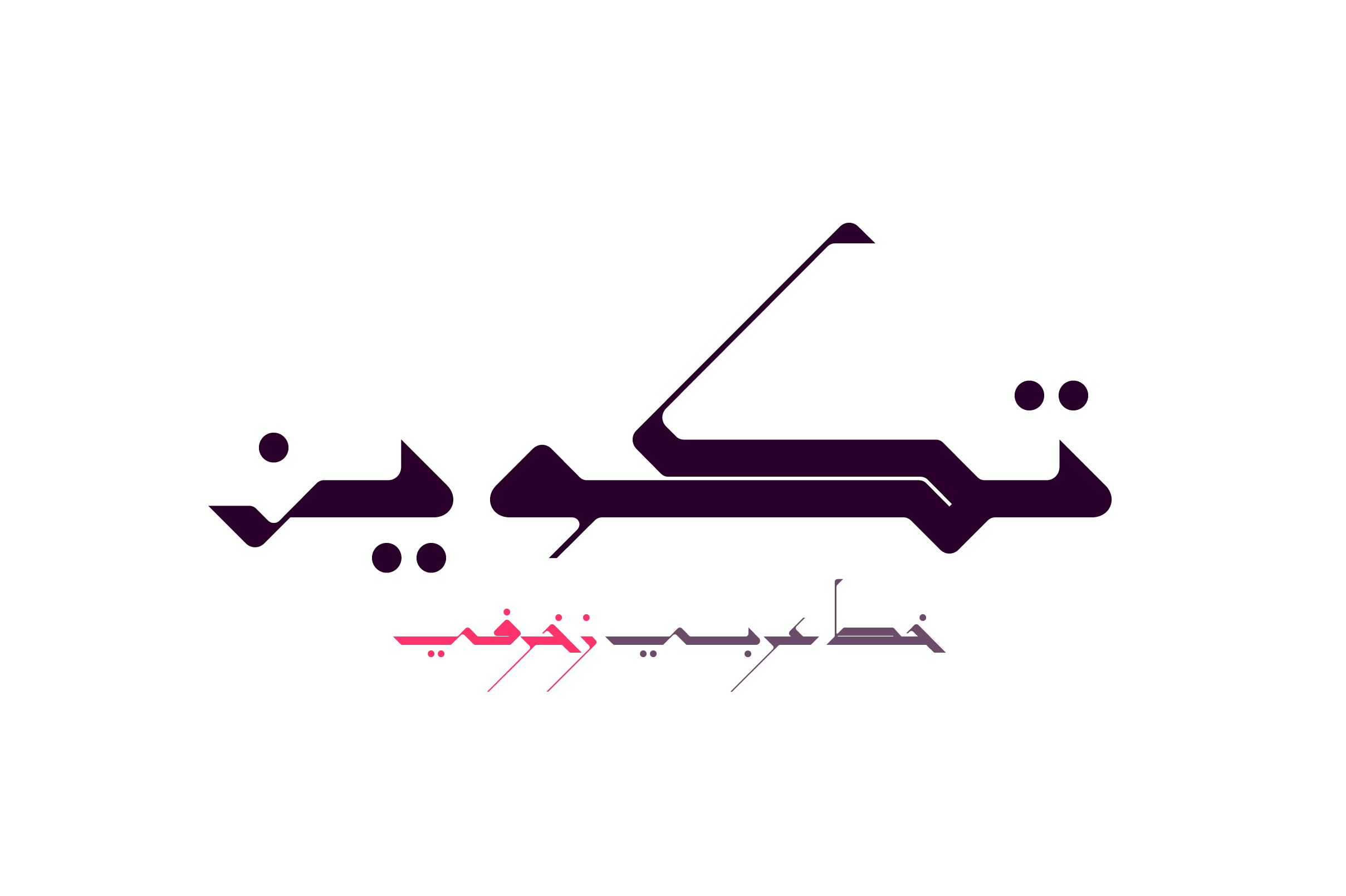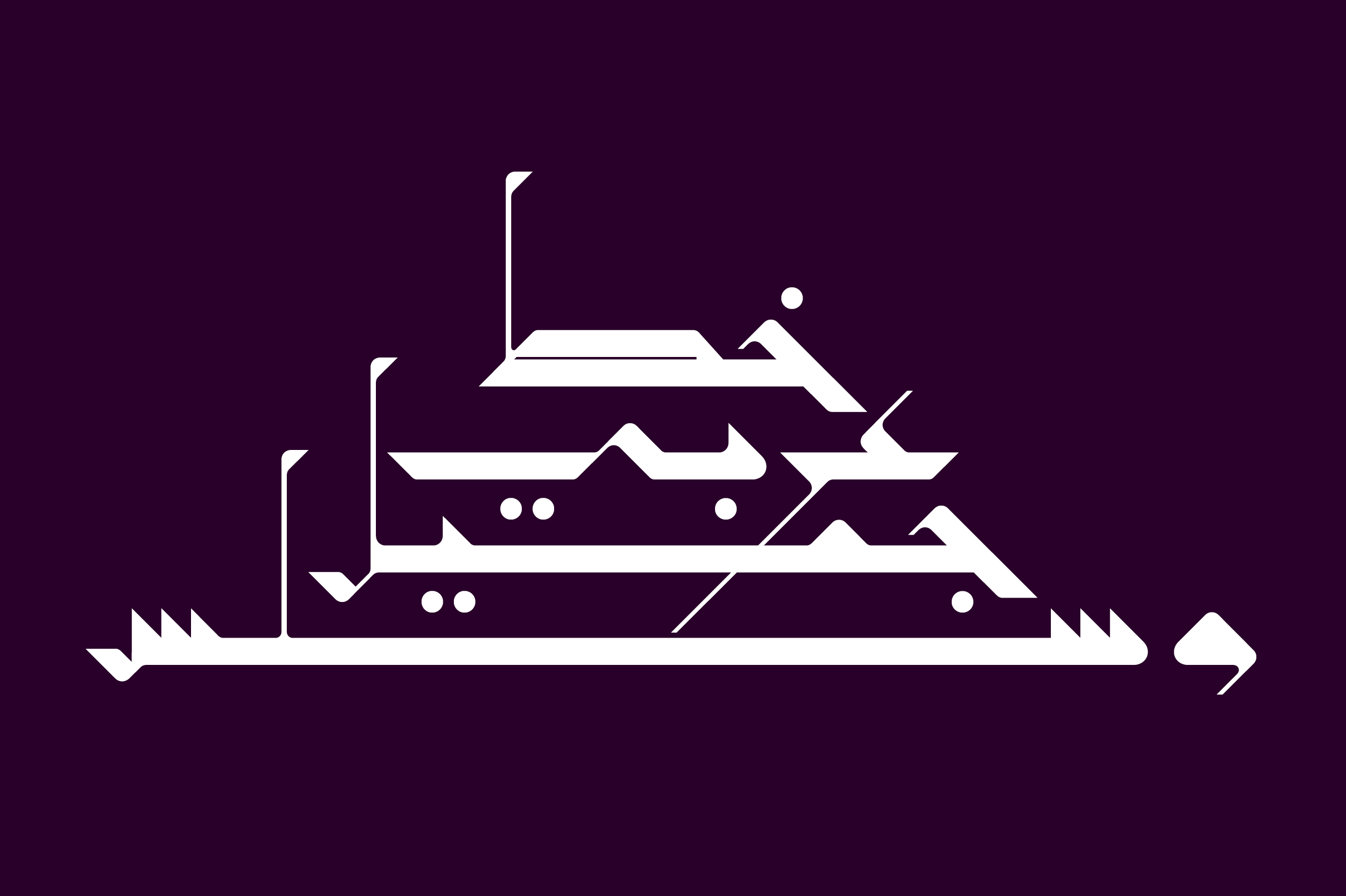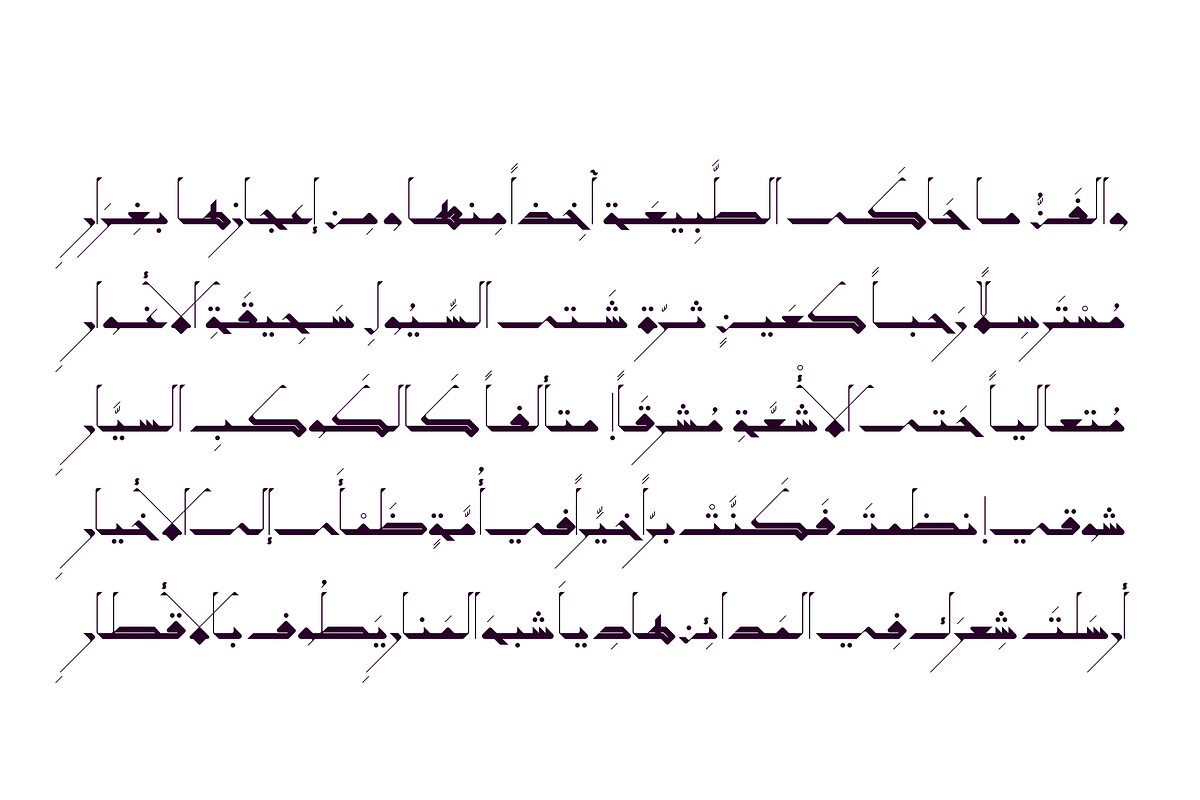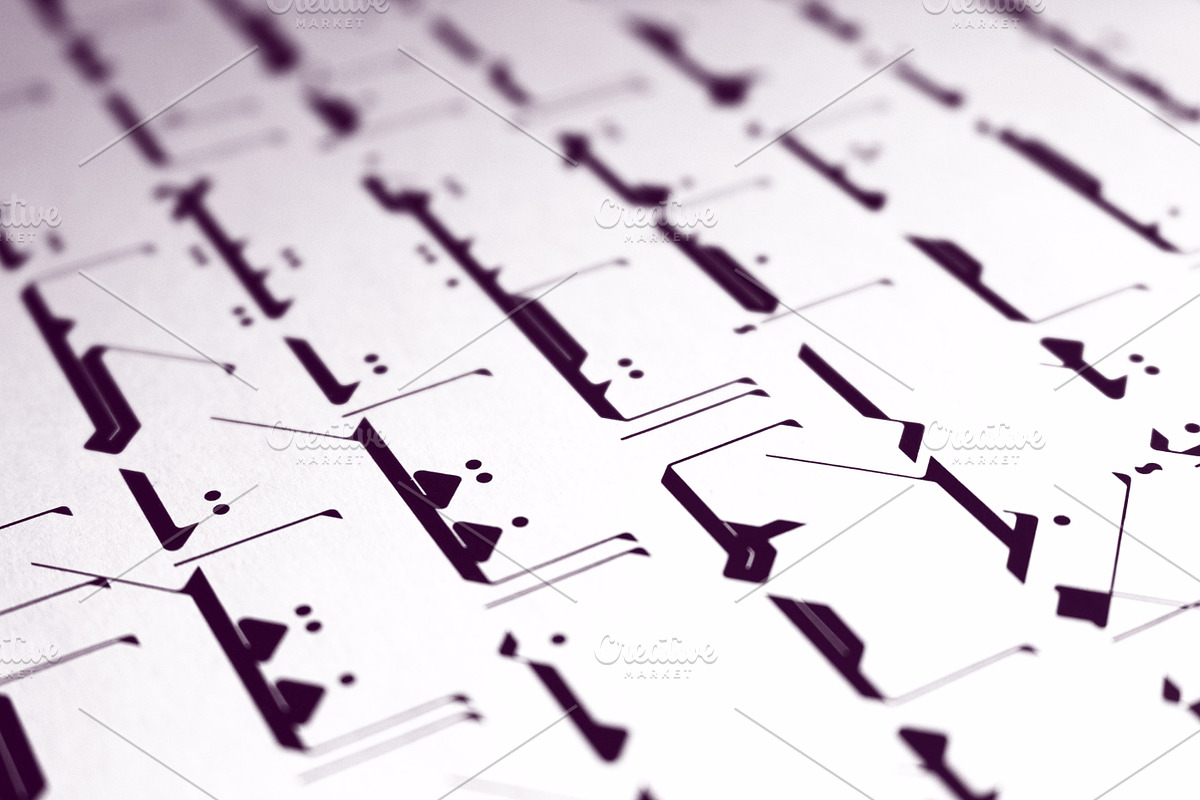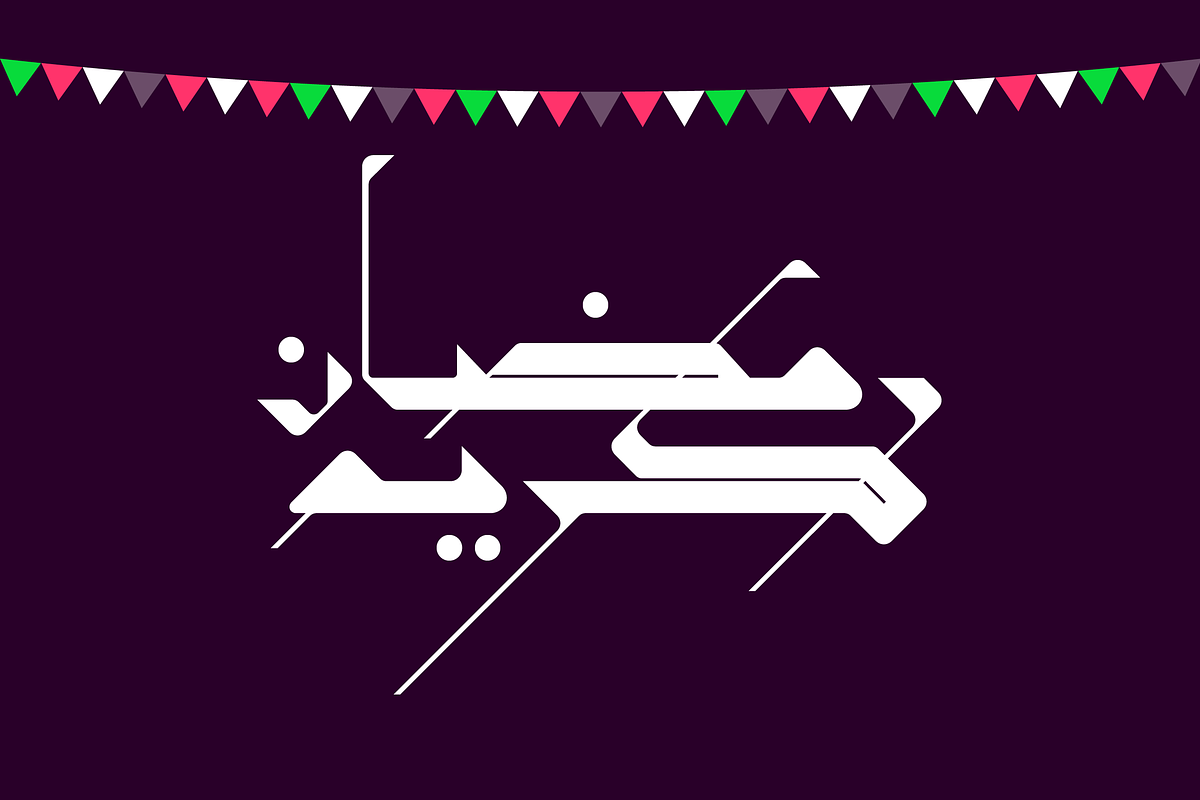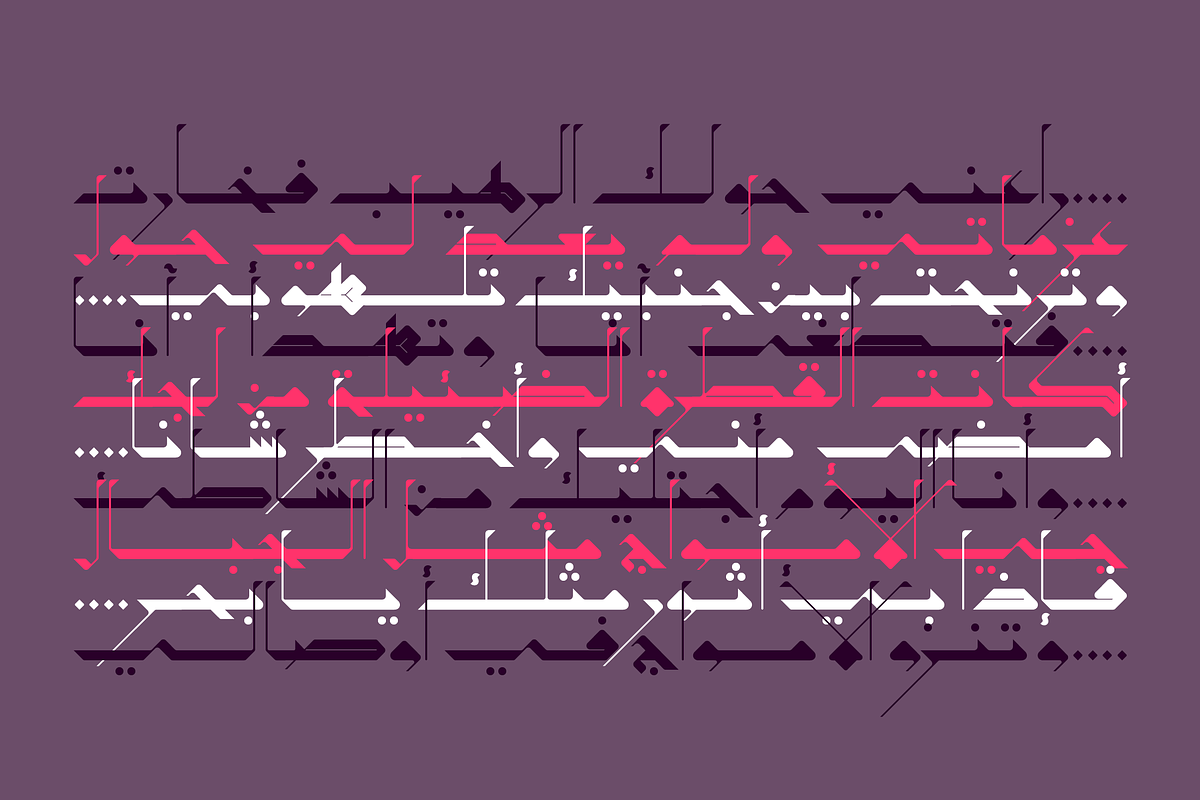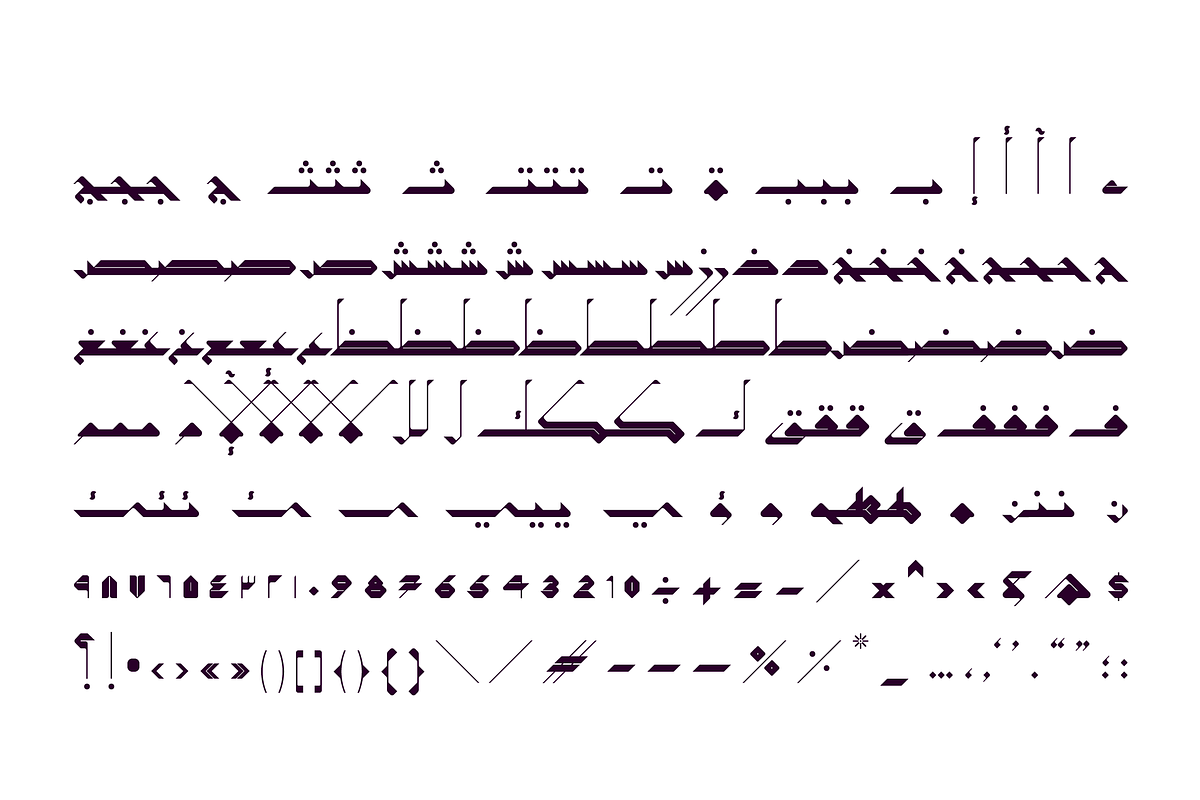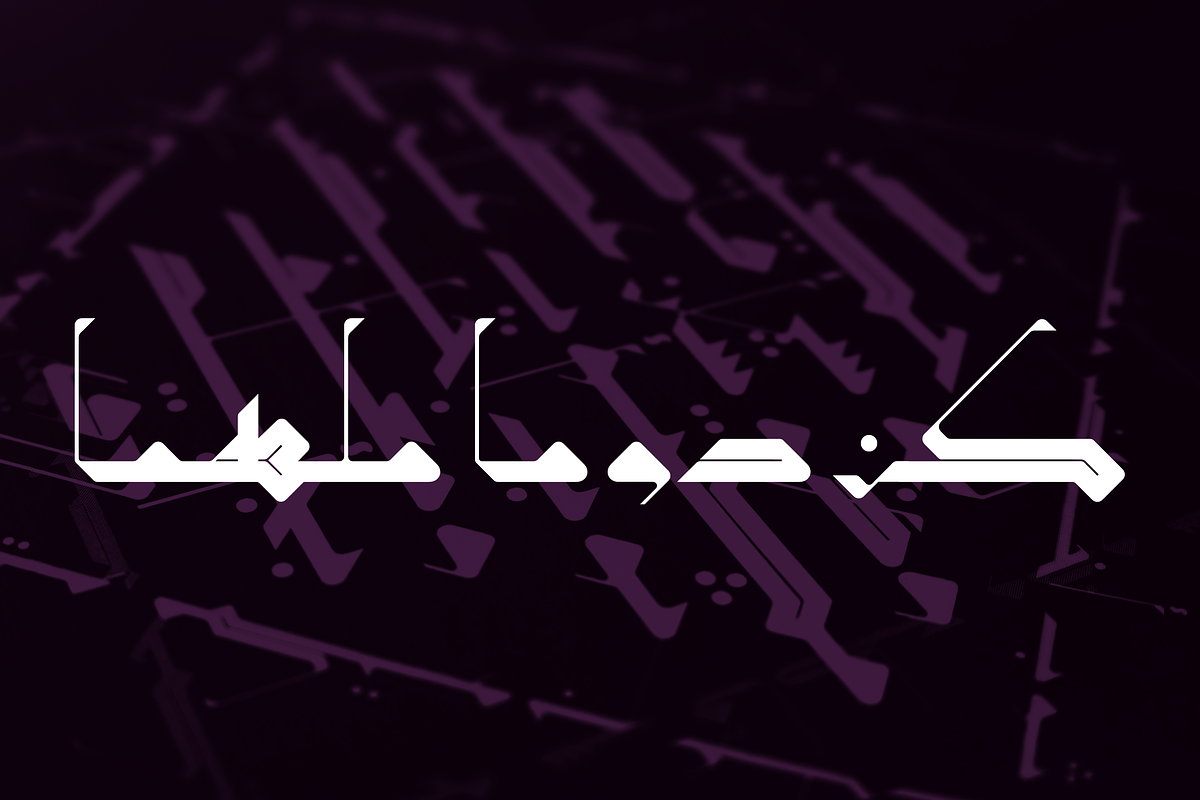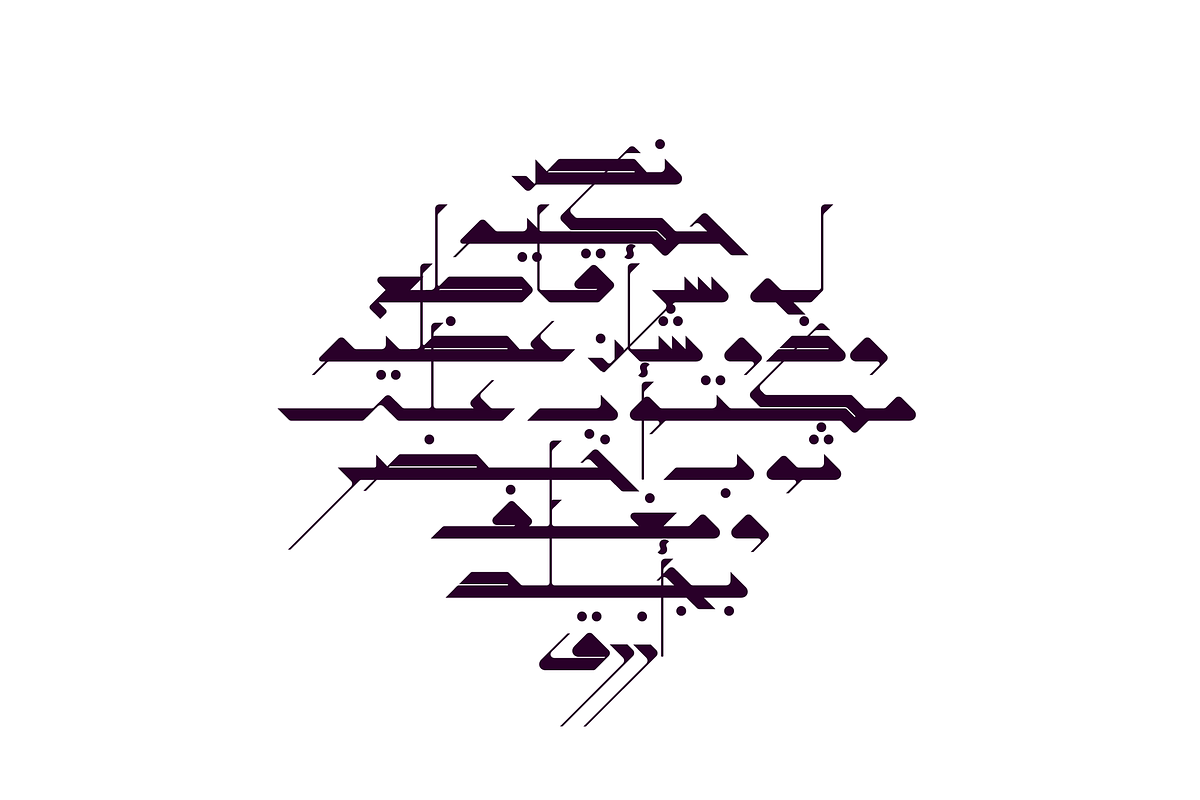
Takween - Arabic Font
Takween is an Arabic display font that is inspired by the Mashrequi writing style. The word Takween is the Arabic for composition. The font mainly suits typographic compositions, ornamental designs and abstracts. It also suits branding, print and web design.